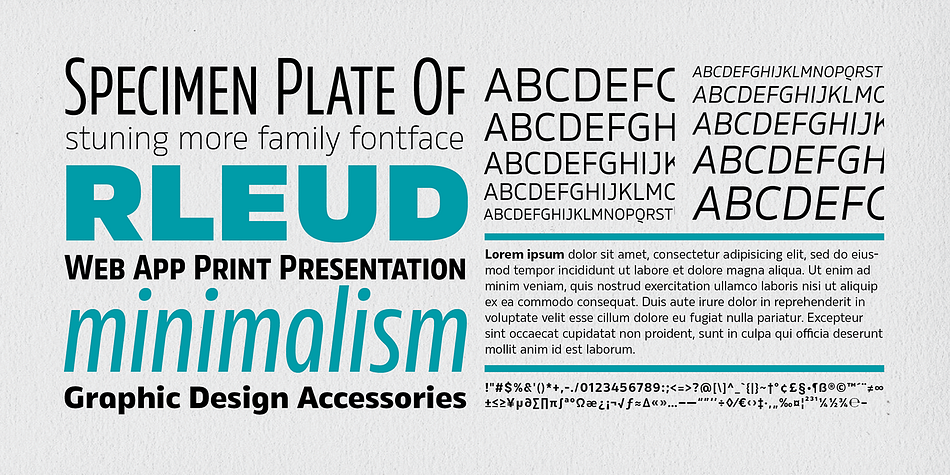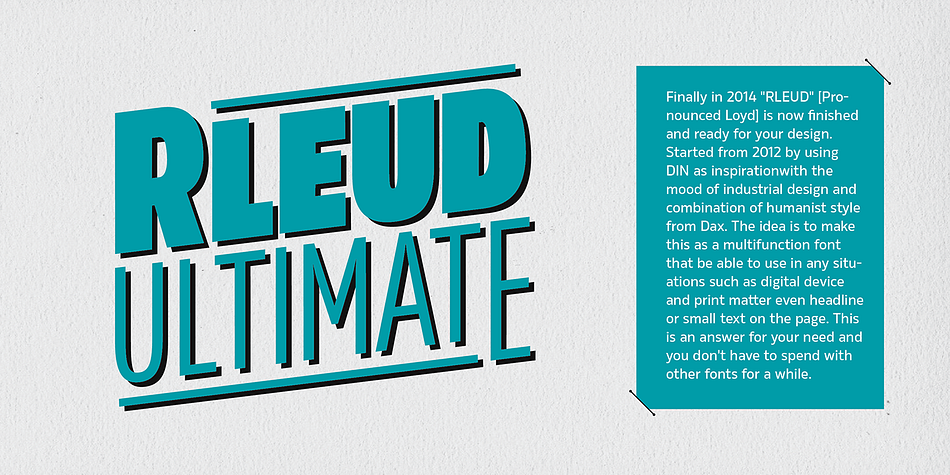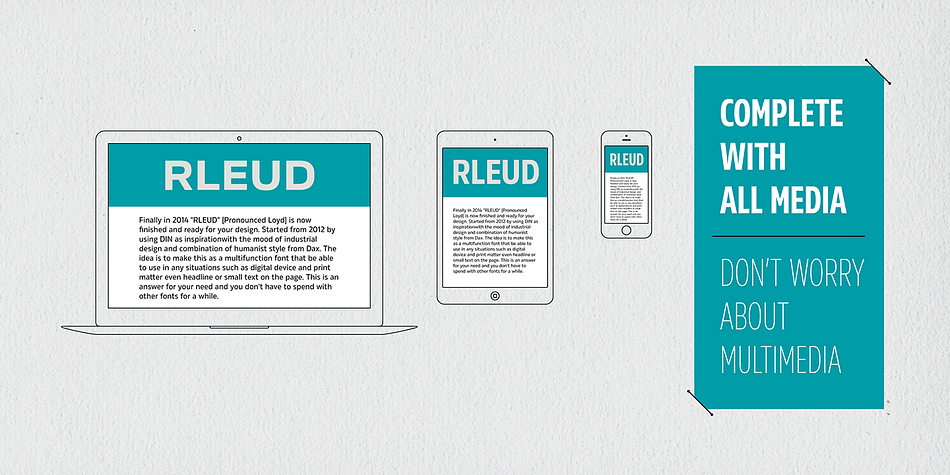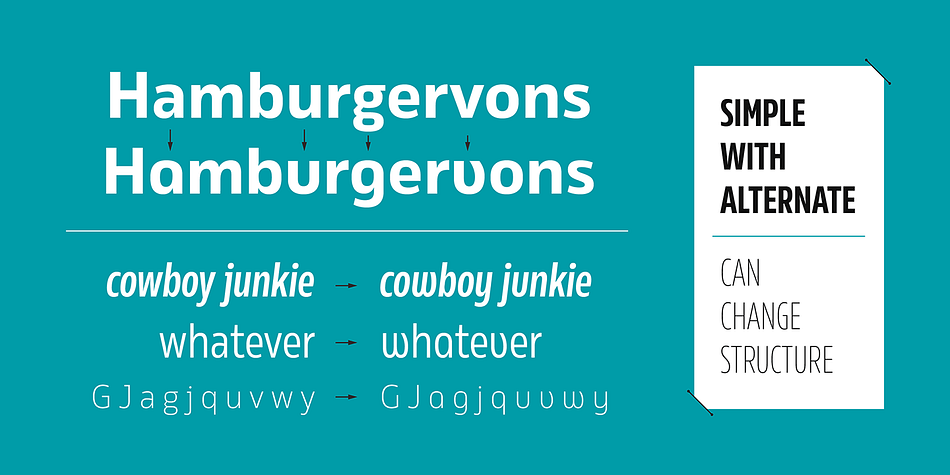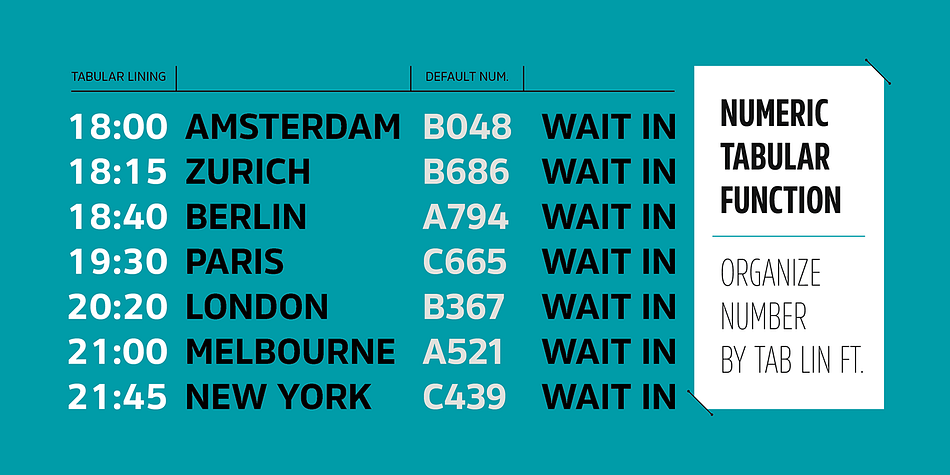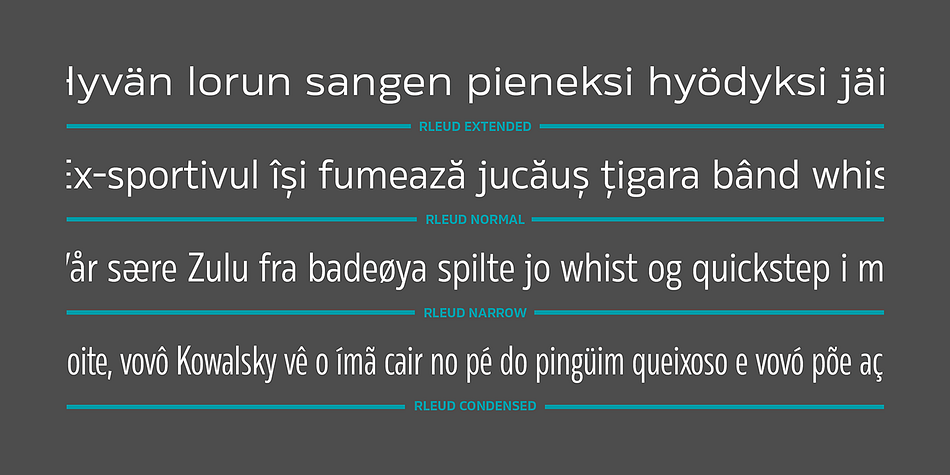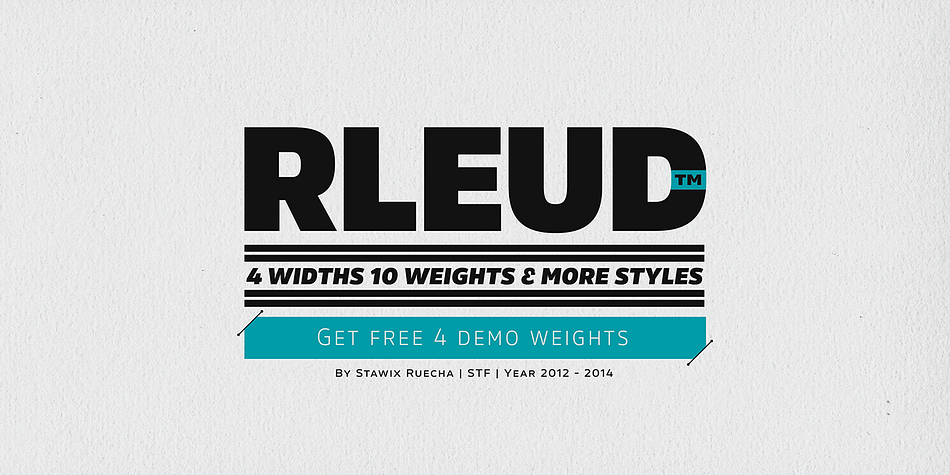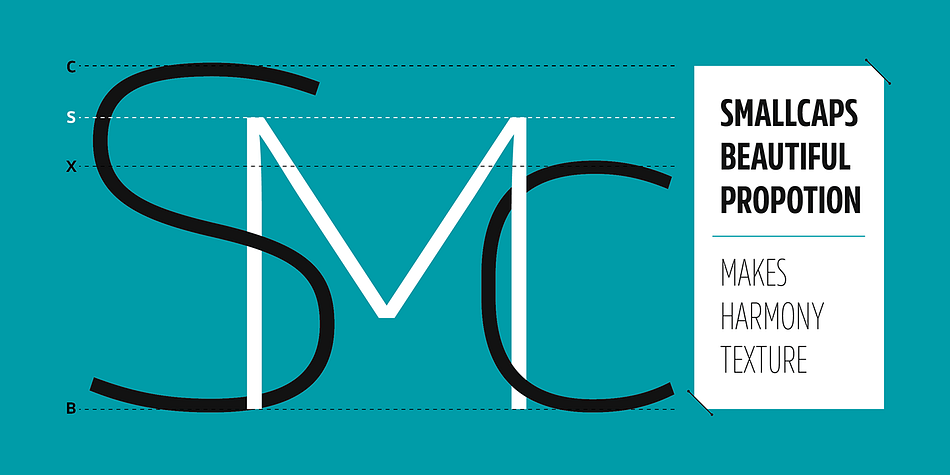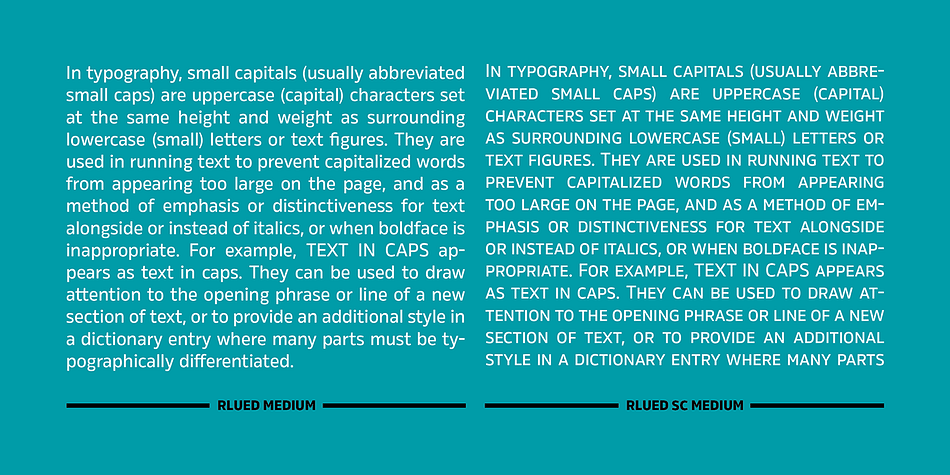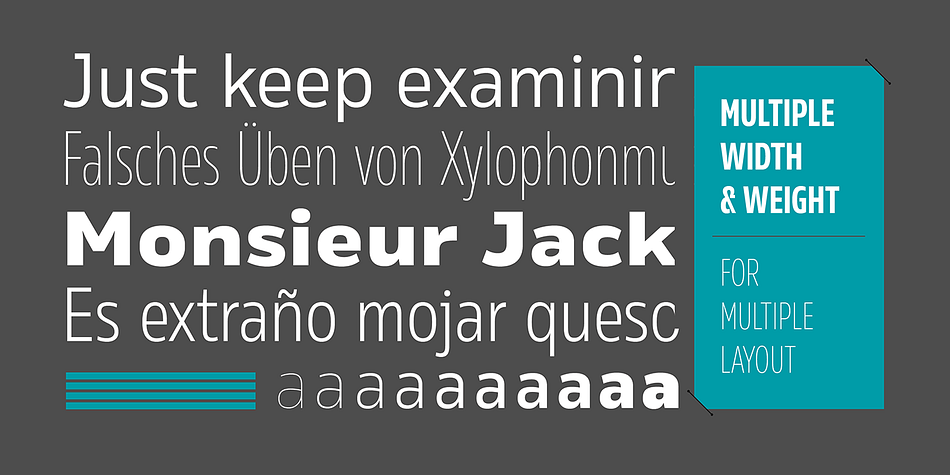
Rleud Extended is a sans serif and display sans font family. This typeface has forty styles and was published by Stawix.
Finally in 2014 “RLEUD” [Pronounced Loyd] is now finished and ready for your design. Started from 2012 by using DIN as inspiration with the mood of industrial design and combination of humanist style from Dax. The idea is to make this as a multifunction font that be able to use in any situations such as digital device and print matter even headline or small text on the page. This is an answer for your need and you don’t have to spend with other fonts for a while.
RLEUD Font is a family of 160 fonts: 10 weights with small caps set and their italics and 4 widths (Normal, Condensed, Narrow and Extended). Opentype features include styling alternate letters and Tabular function for numbers, more ligatures and a very special 4 weights demo for free